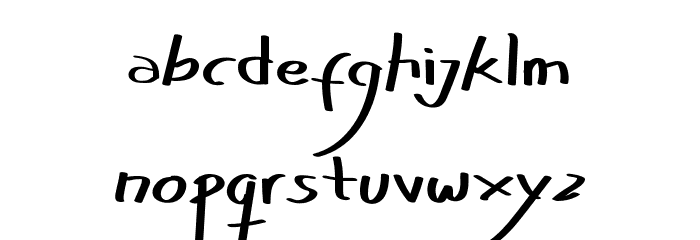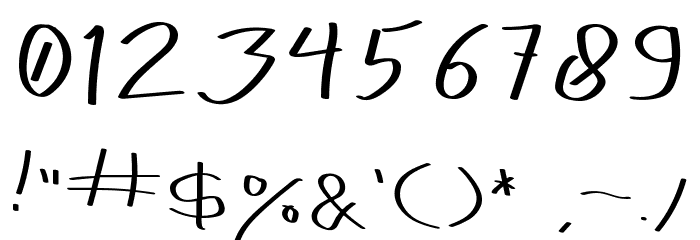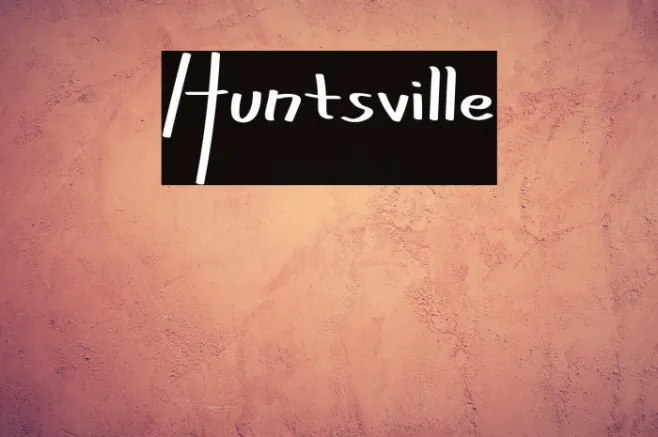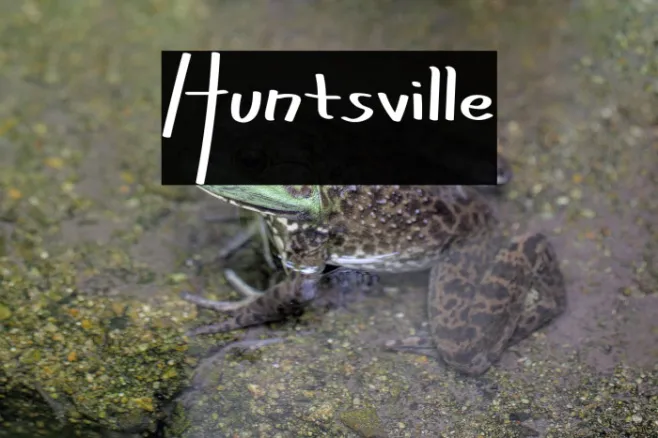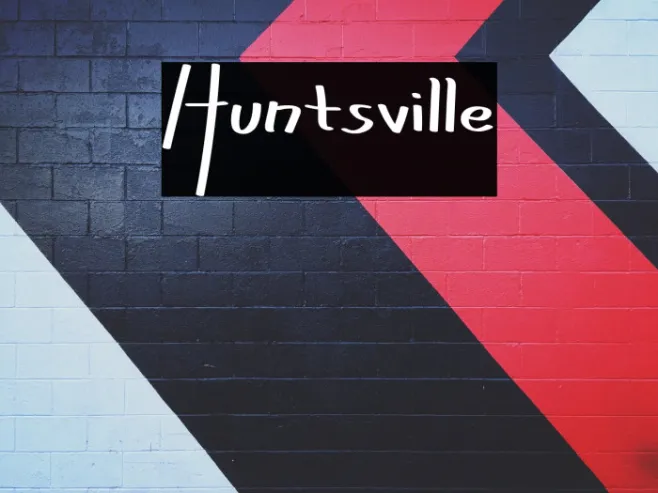
Huntsville Font
This font features a playful and dynamic handwritten style, characterized by its irregular strokes and casual appearance. The uppercase letters exhibit a lively flair with varying heights and angles, while the lowercase letters maintain a consistent flow, enhancing readability. The numerals are bold and slightly rounded, adding to the font's approachable nature. Special characters are creatively designed, complementing the overall whimsical aesthetic. This font's unique personality makes it suitable for projects that require a touch of informality and creativity.
A playful handwritten font with dynamic strokes and a casual, whimsical style.
- Proposed Projects: Ideal for greeting cards, children's books, creative branding, and informal invitations.